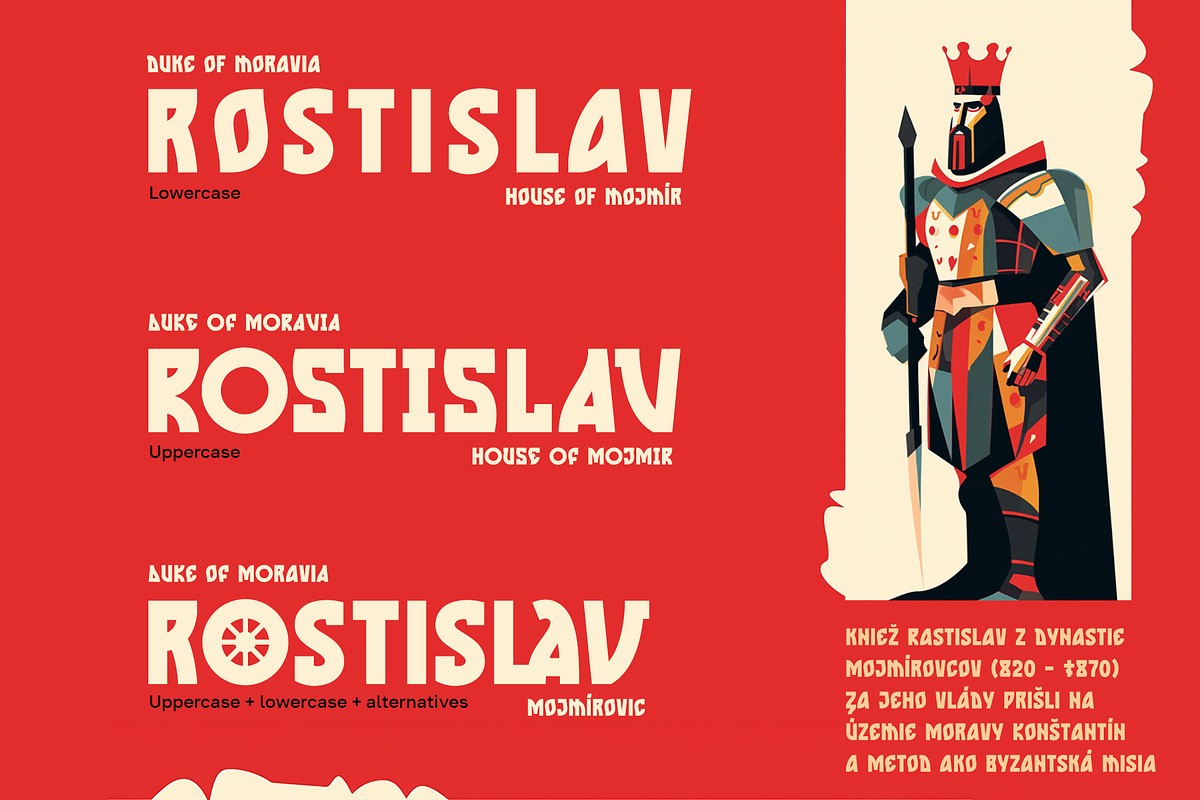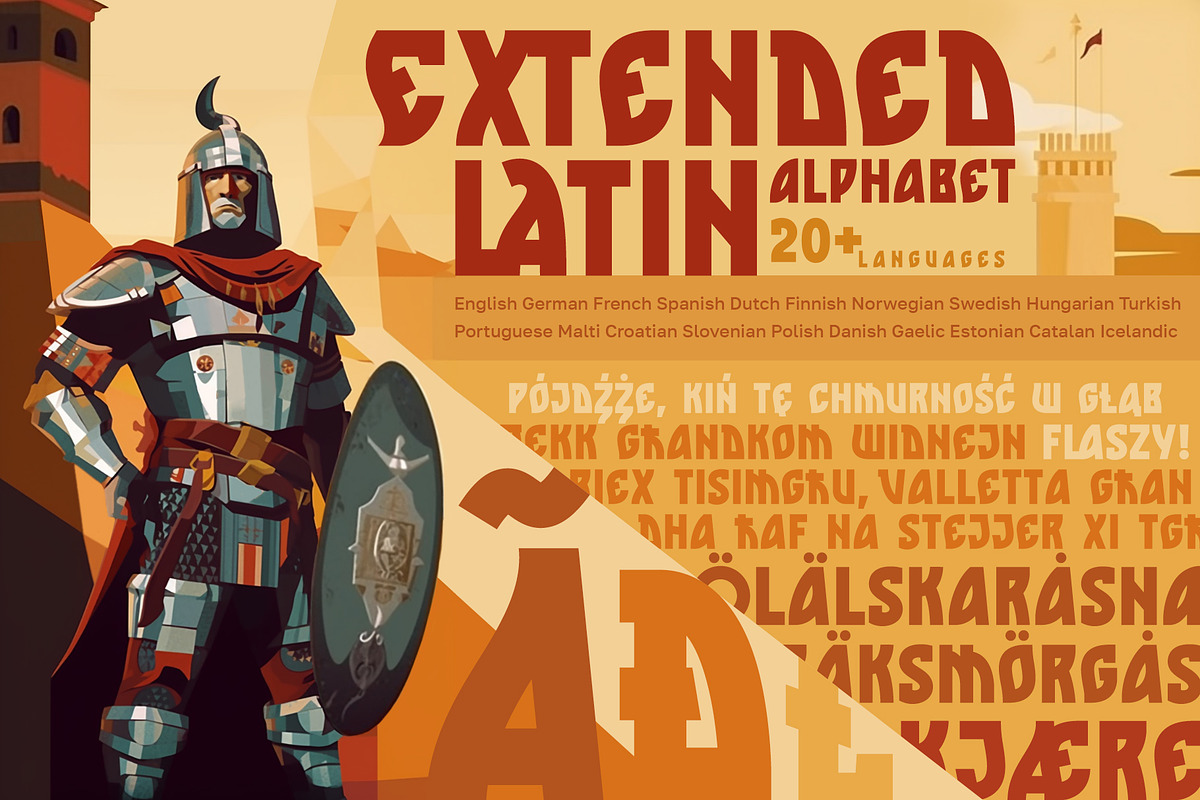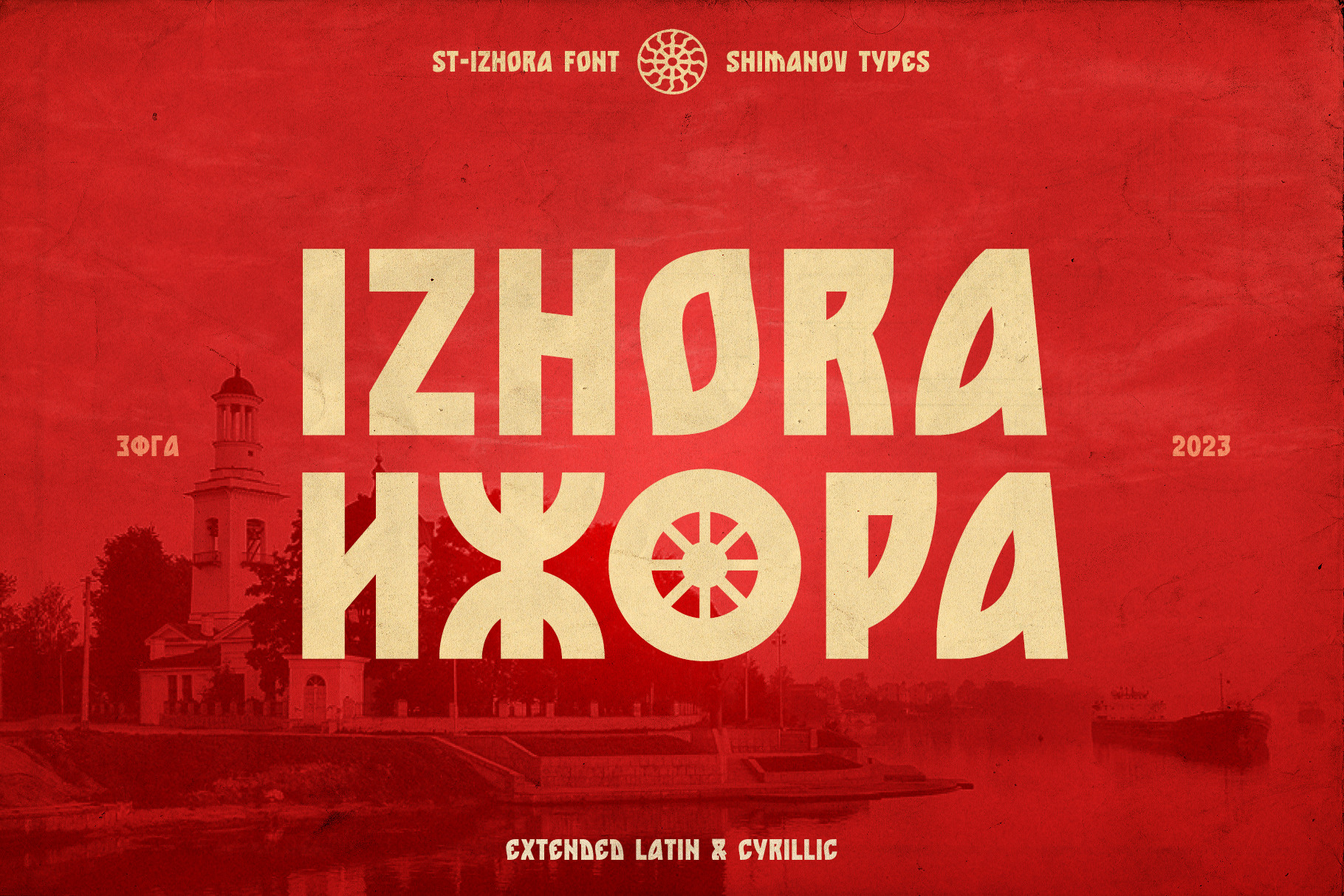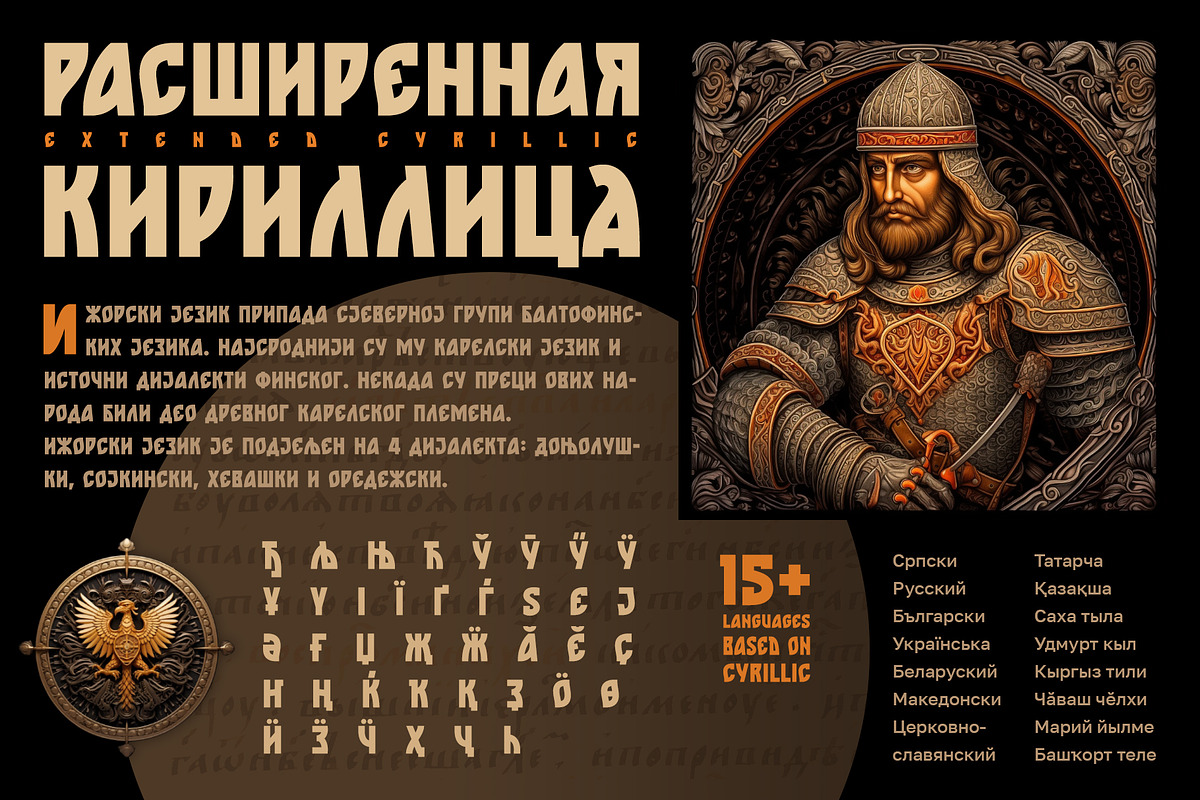
ST-Izhora neoslavic display font
ST-Izhora is a mix of the new and the old, and not just a replica of ancient letterforms. The archaic is presented as a stylistic decorative component of a modern display font. It is bold and authentic. Capital letters are a stylistic procedure for a set of lowercase ones. There are alternative glyphs. The bonus is this font includes of Church Slavonic alphabet. The font is artistic, display. NNot recommended for typing arrays of text.
Support for 35+ languages (extended Latin and Cyrillic), basic punctuation, letter alternatives, numbers, special currency symbols.